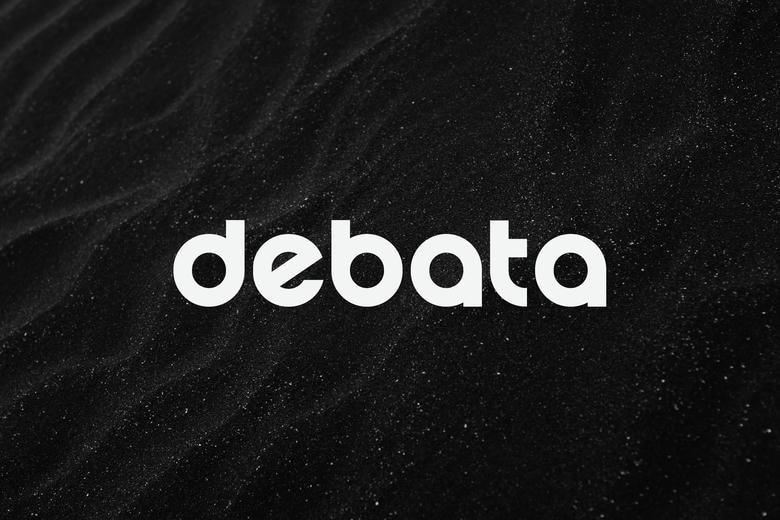
Debata Font
Debata is a fresh contemporary sans serif font with functional and simple design on mind. With its clean lines, consistent weight, and professional geometry Cleanly drawing on Debata, a professional and minimal touch is applied to any project.
Debata Sans Serif Font